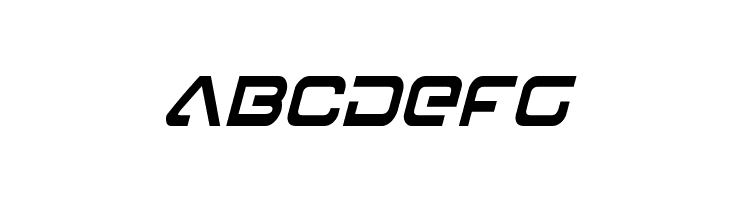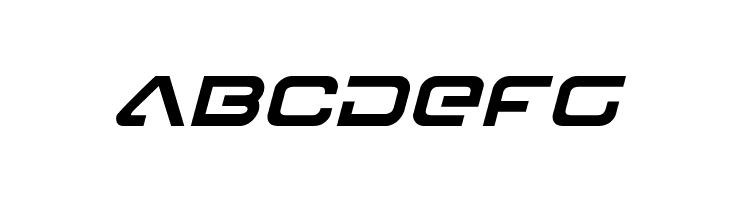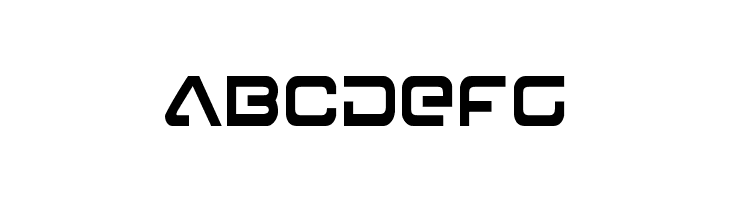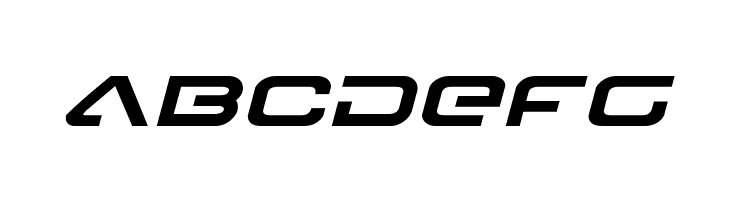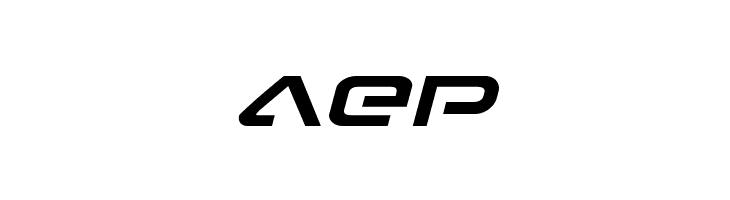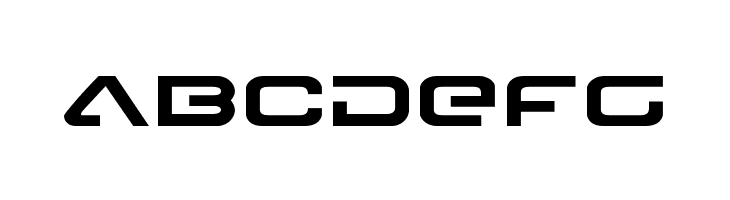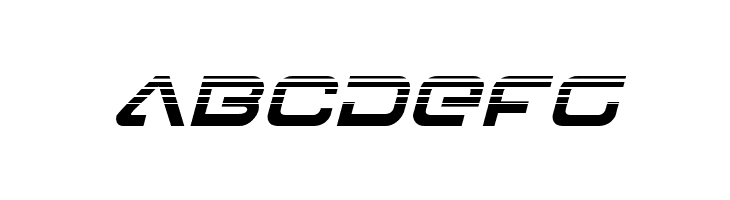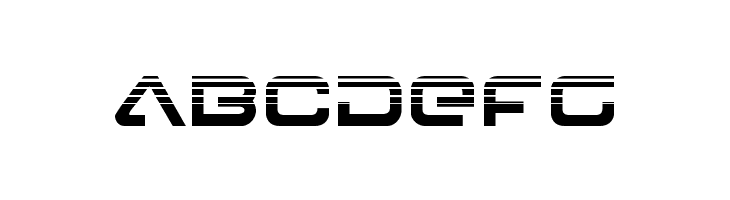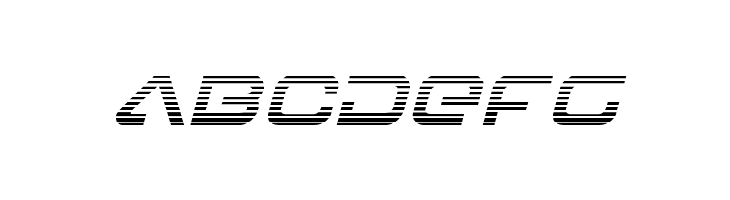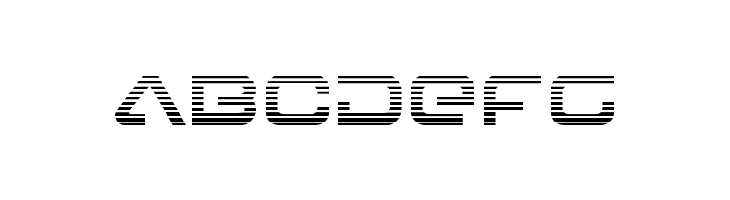
A futuristic, chrome-like italic font with dynamic parallel lines.
A futuristic, geometric font with bold, angular letterforms and a condensed width.
A futuristic, italicized, and condensed font with sharp angles and sleek lines.
A futuristic, angular font with bold, geometric forms and an expanded width.
A futuristic, expanded italic font with angular, geometric shapes.
A futuristic font with gradient-like horizontal lines and geometric shapes.
A futuristic, italic font with a gradient line effect and dynamic style.
A bold, futuristic font with a halftone effect and geometric design.
A futuristic, italicized font with a halftone effect and bold, angular lines.
A bold, italic, futuristic font with angular, geometric characters.